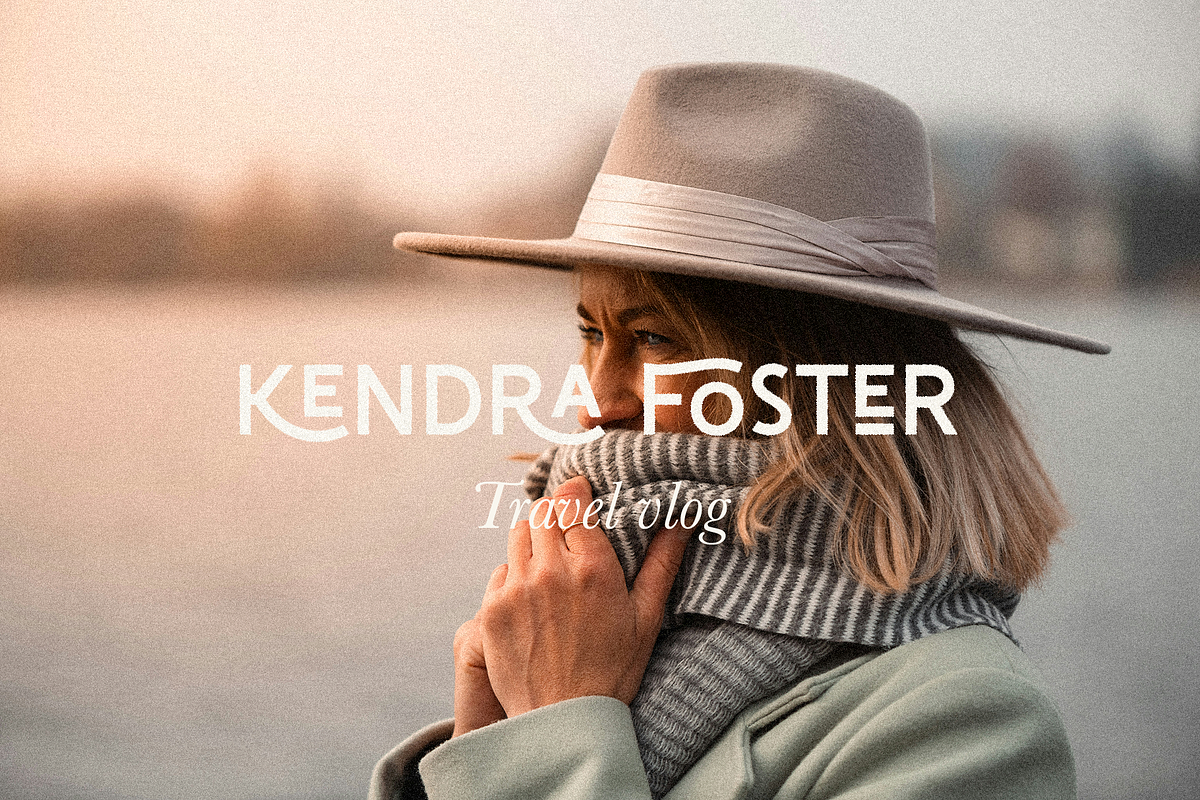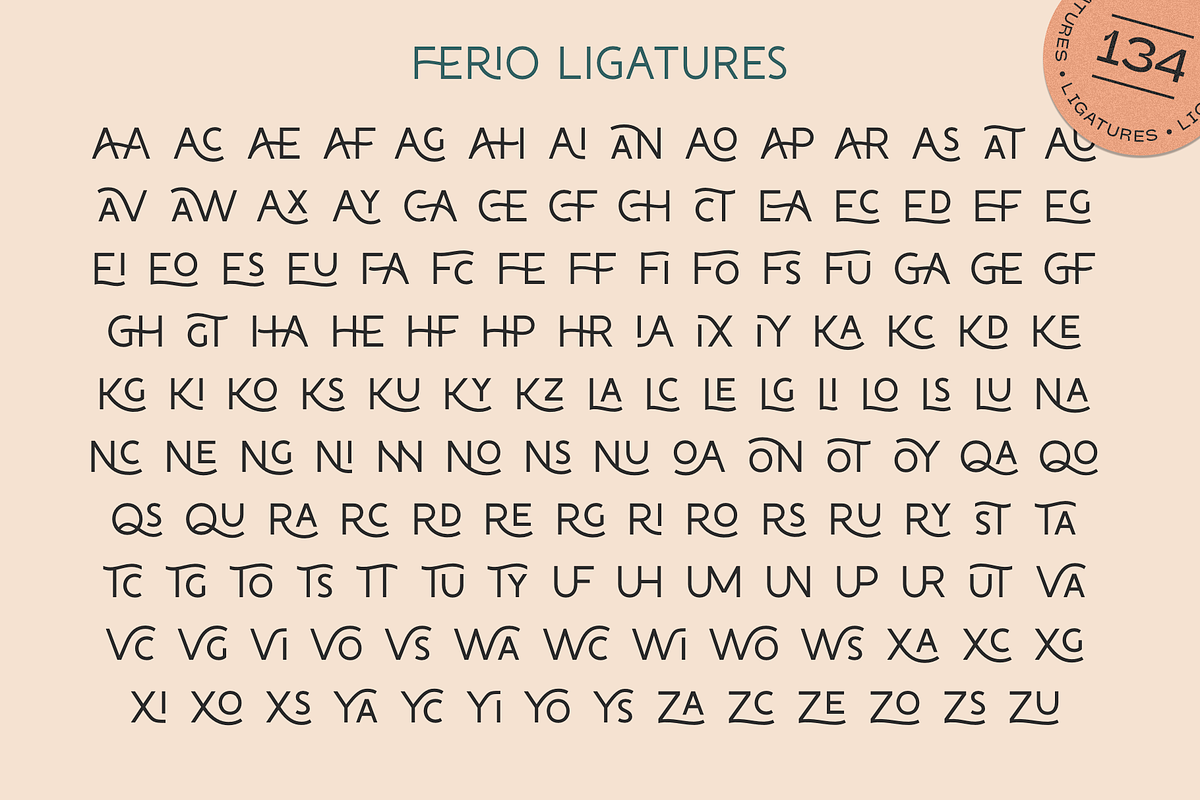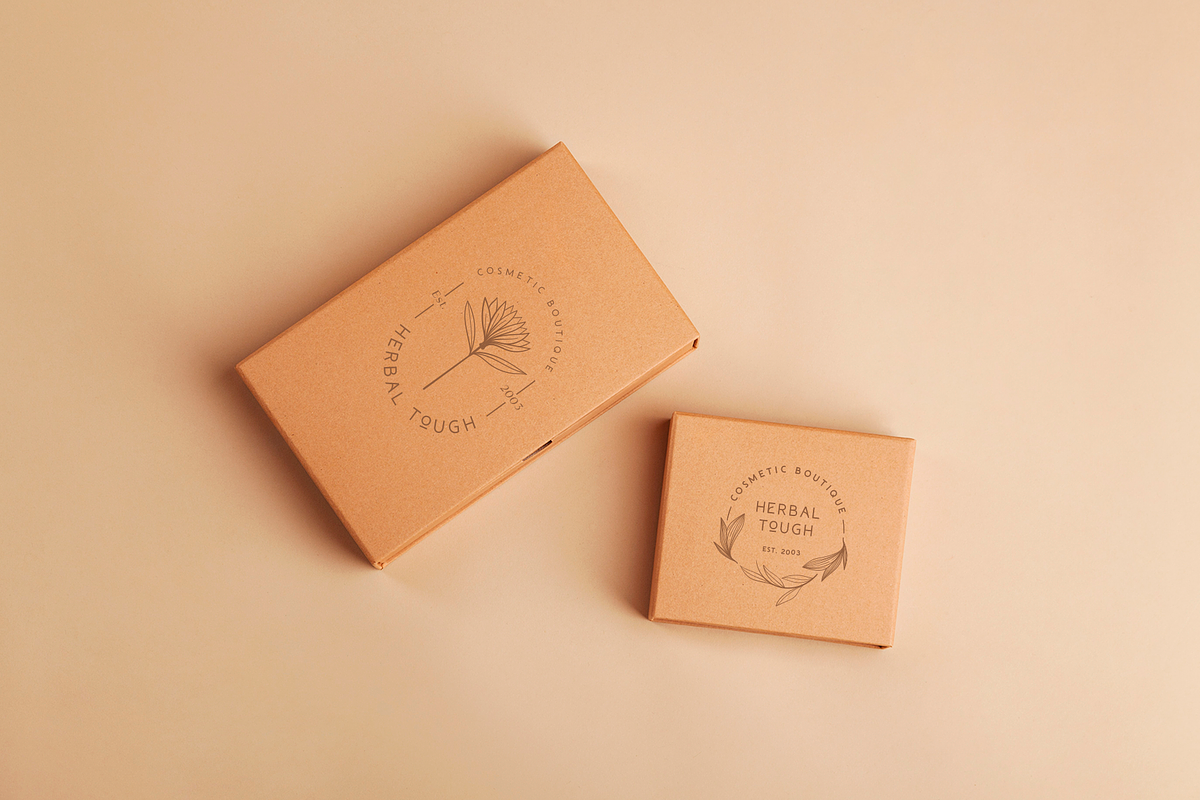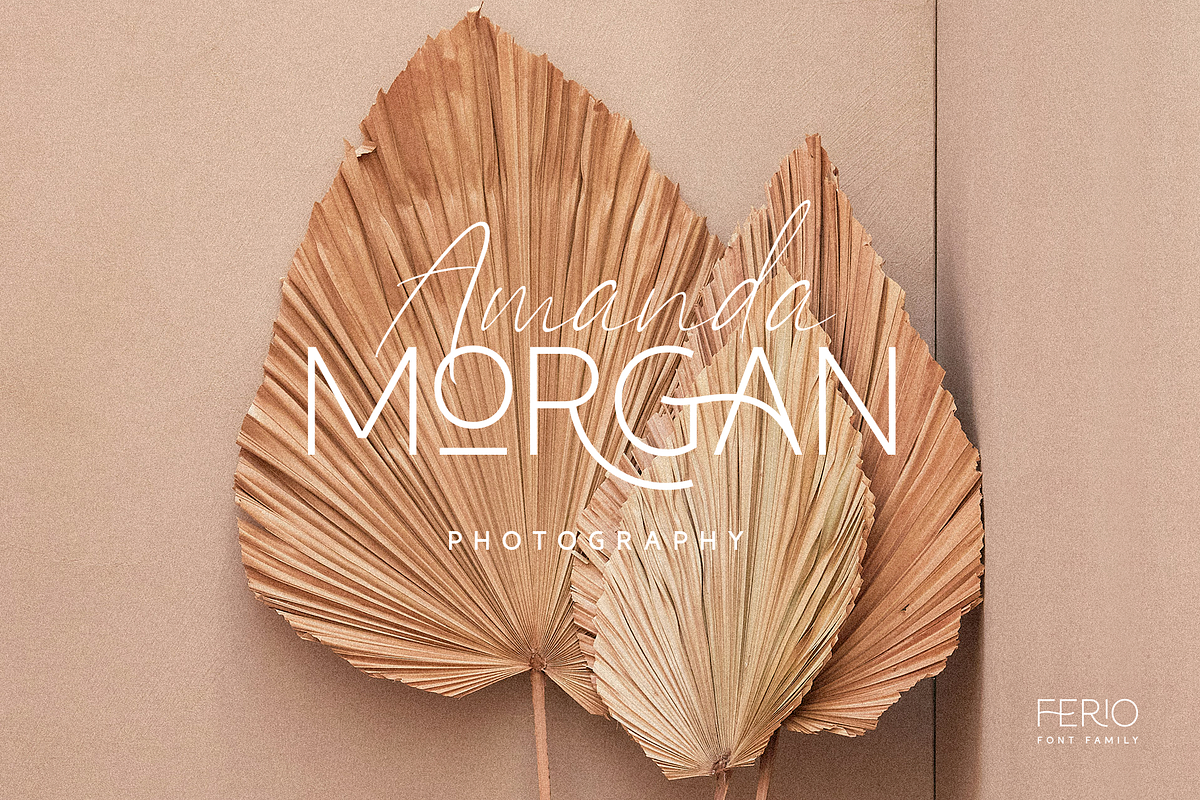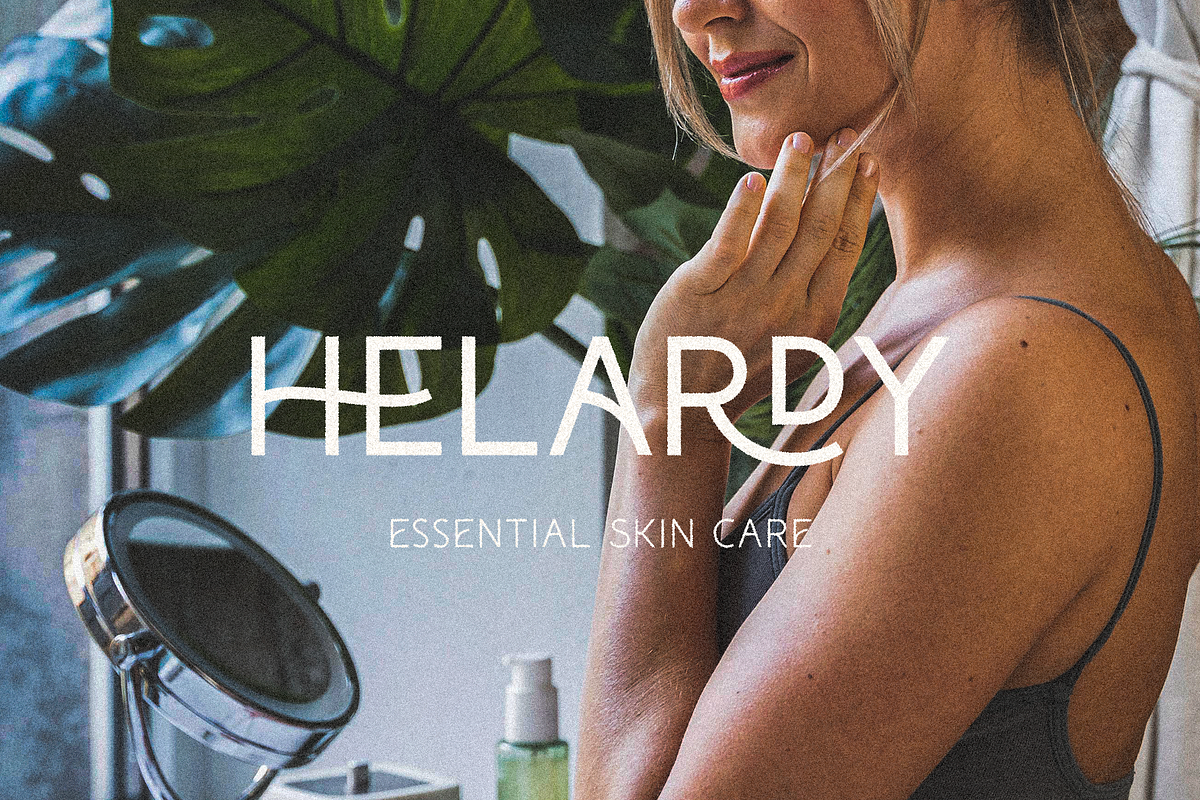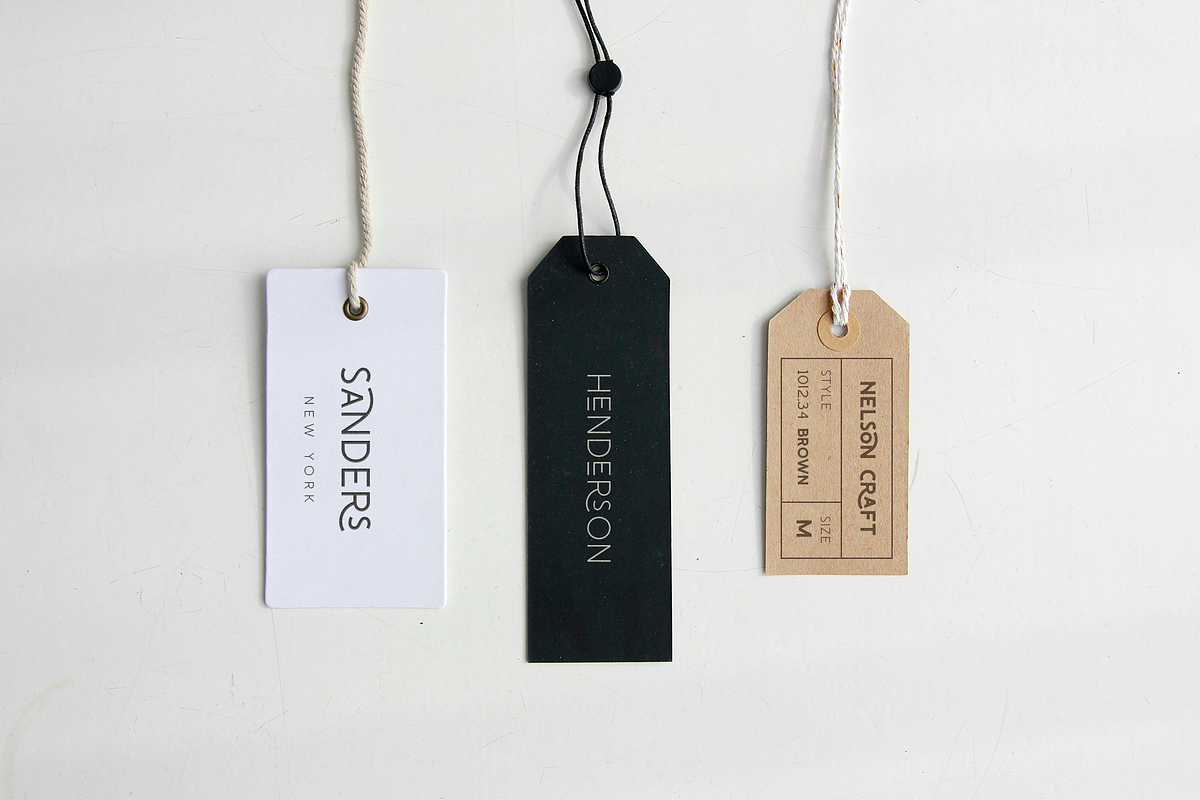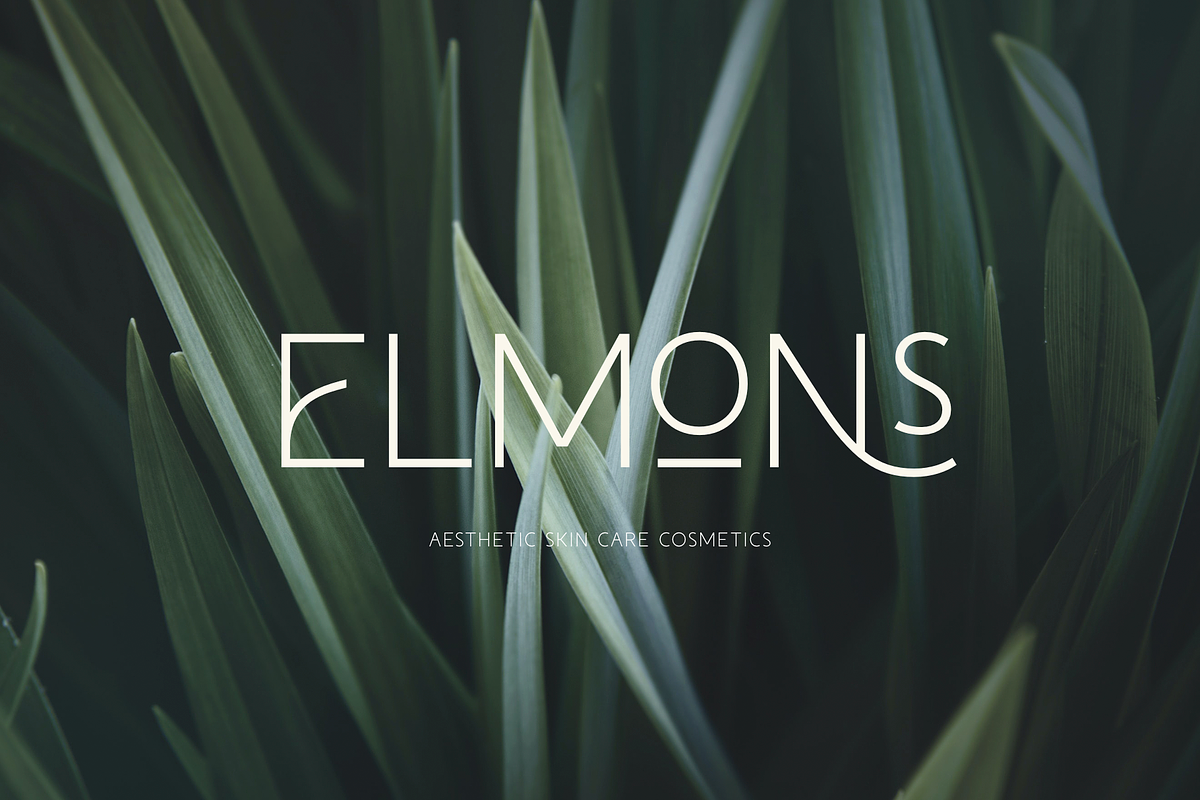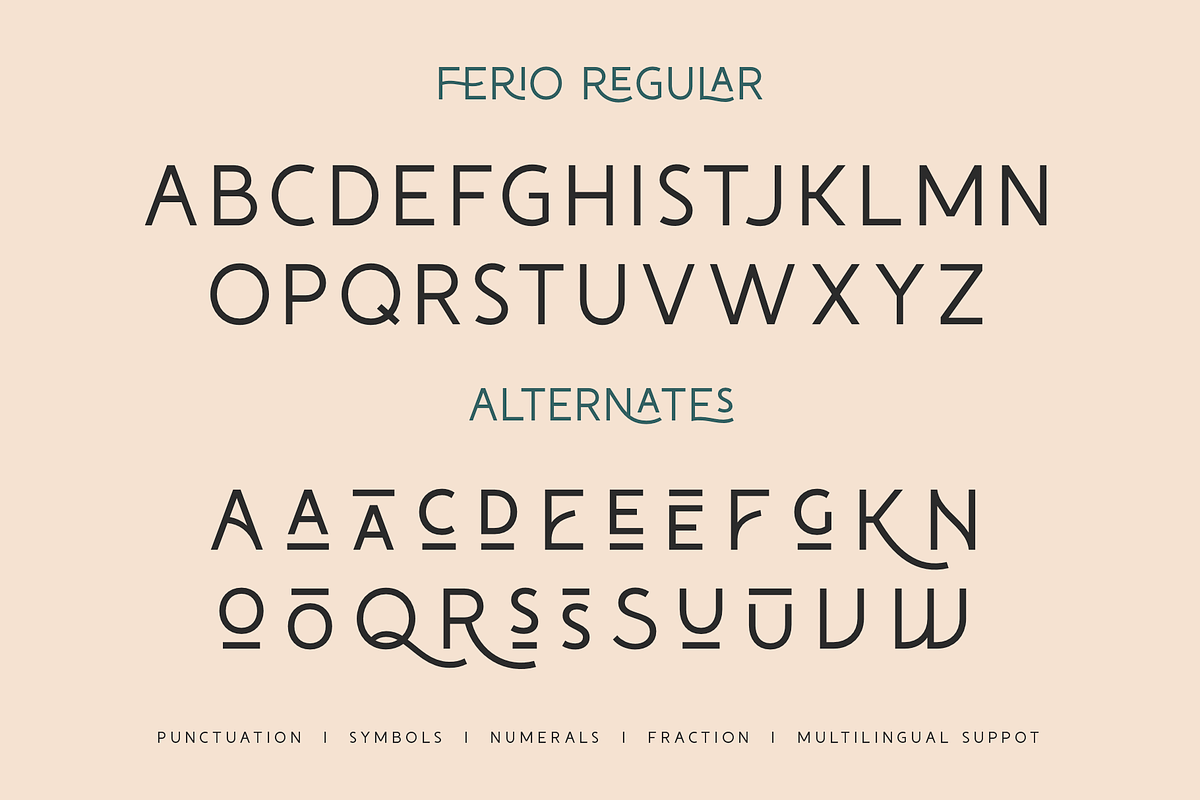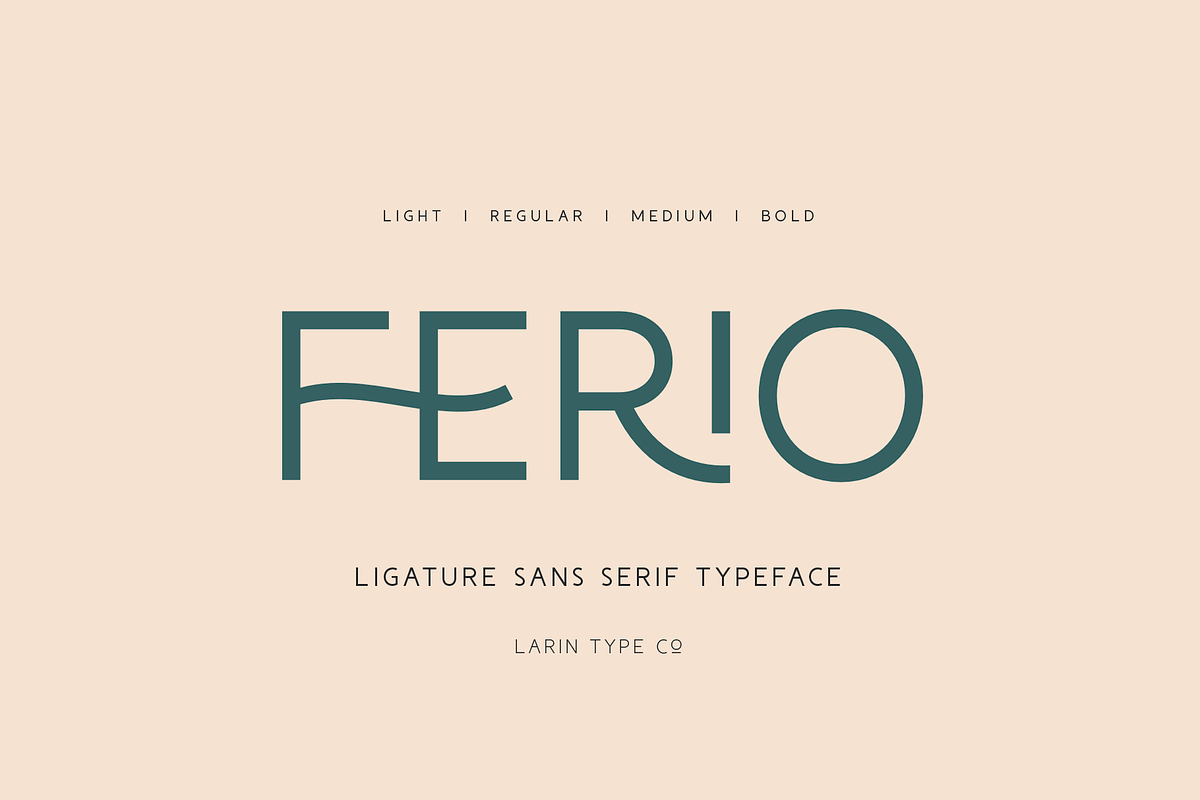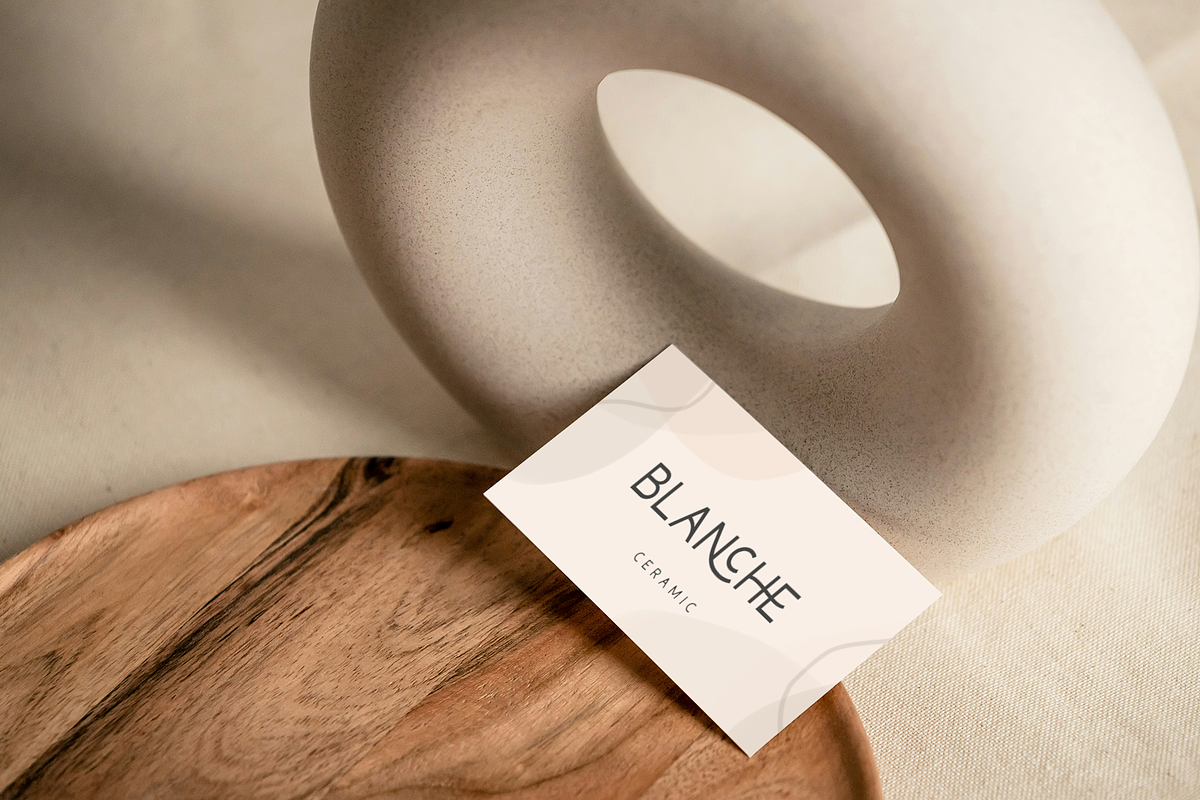
Ferio
Ferio is an elegant, modern sans-serif font family, and a great fashionable solution for your project. It includes four weights (light, regular, medium, bold). This is a modern stylish and bright logo font it includes many alternatives and ligatures with which you can play and choose the option that suits you. With it, you can create logos, banners, use in advertising, packaging, book covers and magazines, headings, descriptions and much. The uppercase completely duplicates the lowercase including alternatives and ligatures.
Following international symbols support: ÀÁÂÃÄÅĄÇĆÈÉÊËĘÌÍÎÏÐÑŃŁÒÓÔÕÖØÙÚÛÜŚŠŸÝŹŻŽßàáâãäåçèéêëìíîïðñòóôõöøùúûüýÿąćęłńśšźżž
- Allcaps alphabetA-Z
- Numbers, fractions
- Punctuation and symbols
- 23 alternates
- 134 ligatures